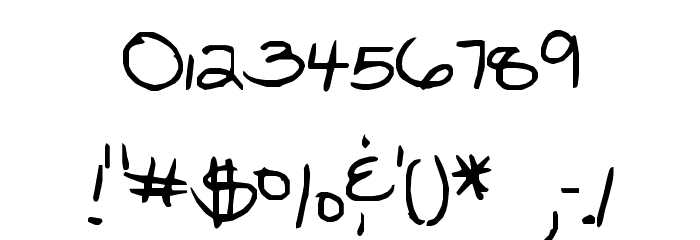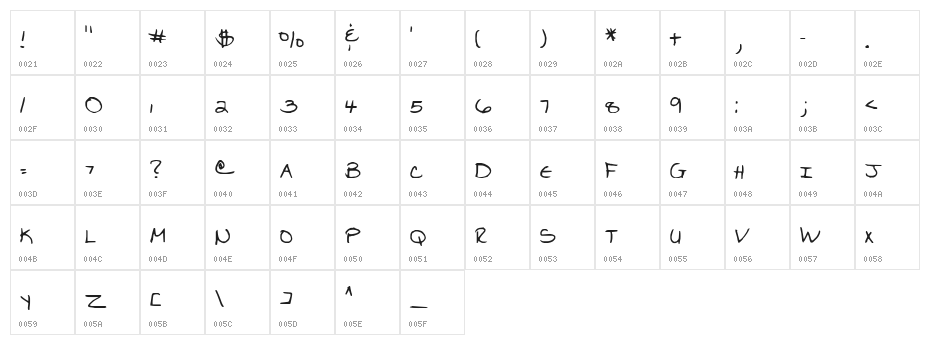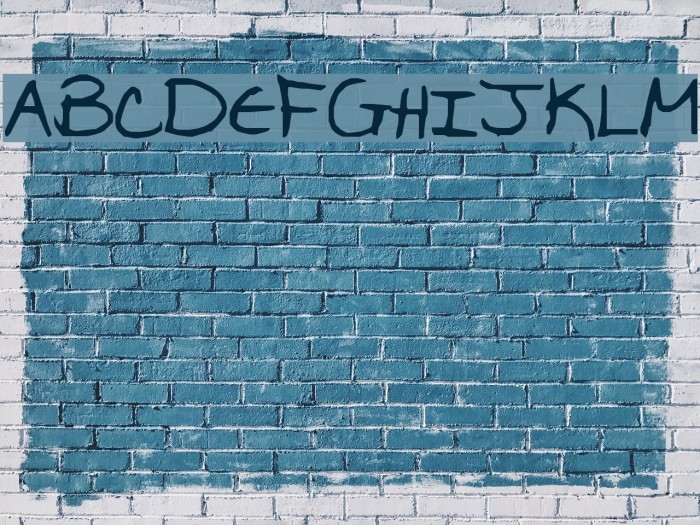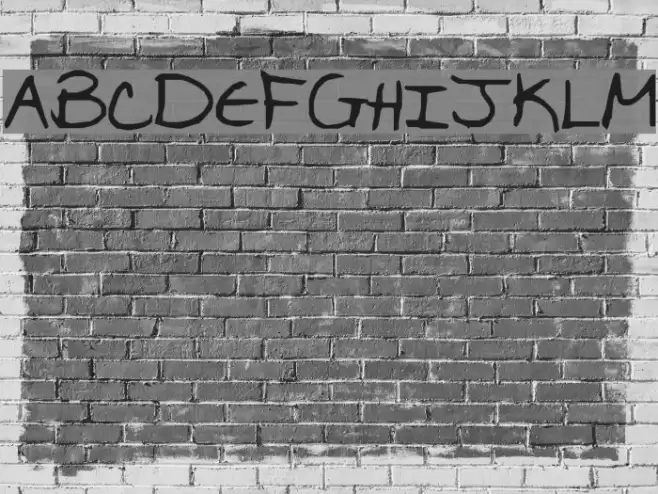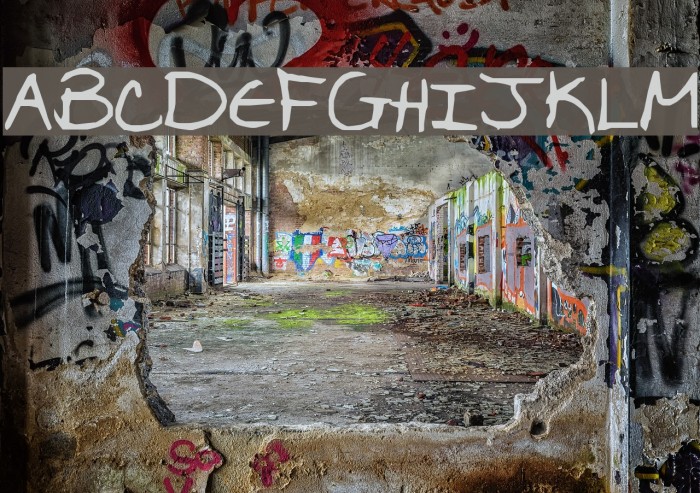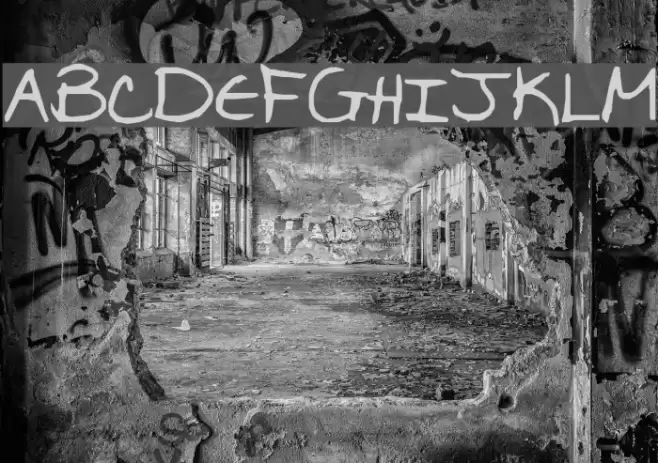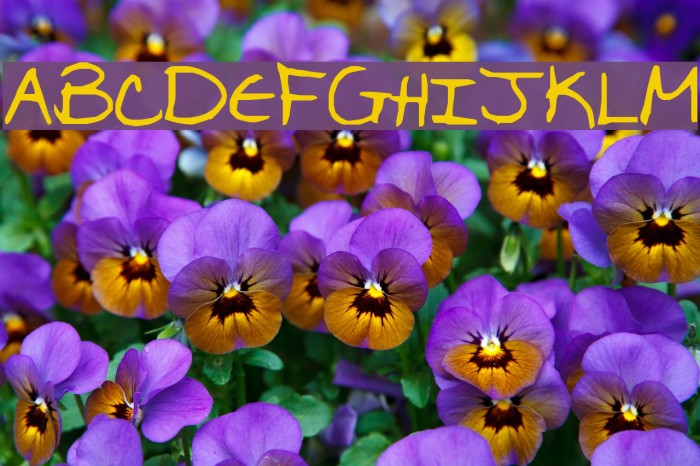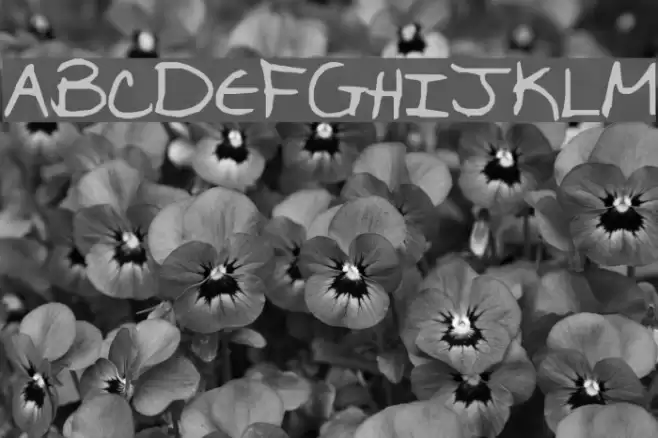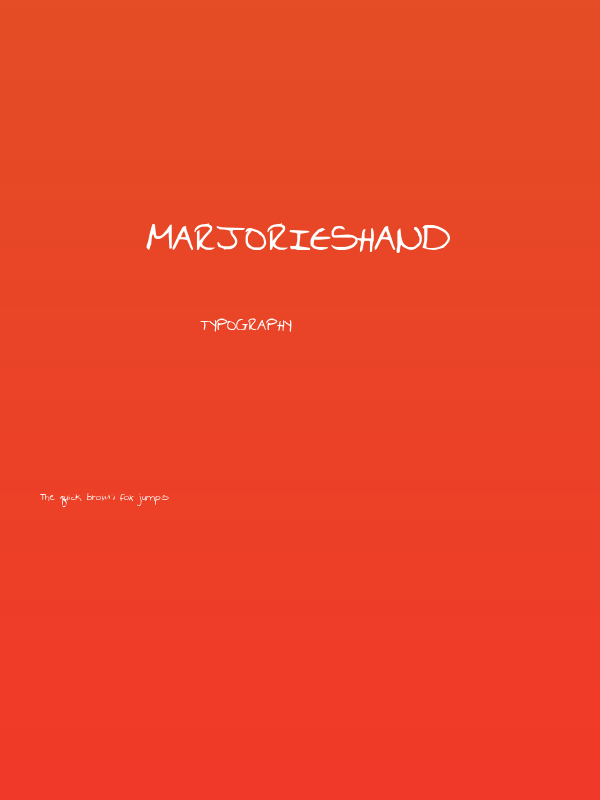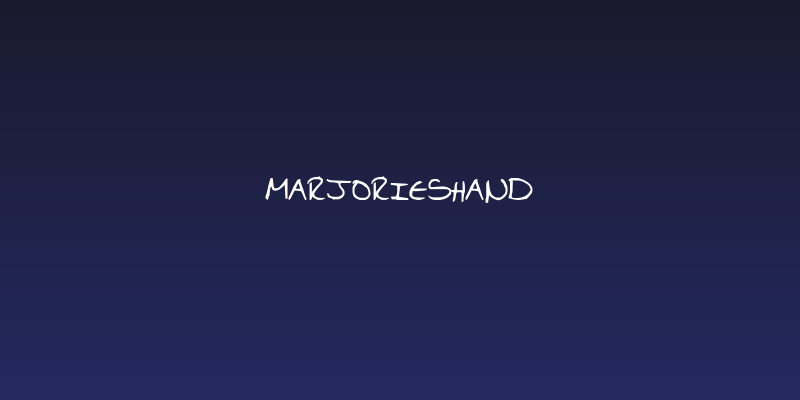
Marjorieshand Font
Marjorieshand Description
This font exudes a casual, handwritten style, characterized by its fluid and natural strokes. The letters are slightly irregular, giving it an authentic, personal touch that mimics real handwriting. The uppercase letters maintain a consistent height, while the lowercase letters vary slightly, adding to the organic feel. The numbers and special characters follow the same handwritten aesthetic, ensuring a cohesive look across all characters. The overall appearance is approachable and friendly, making it suitable for projects that require a personal or informal tone.
| Use Case | Logos, Invitations, Greeting cards |
| Proposed Projects | Ideal for personal notes, invitations, greeting cards, and informal branding projects. |